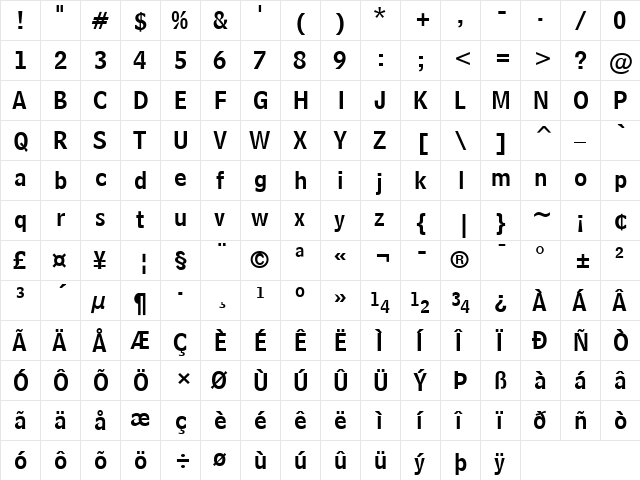
BellCentennial LT NameAndNr Regular Font Preview
BellCentennial LT NameAndNr Regular
Design Context for BellCentennial LT NameAndNr Typeface
BellCentennial LT NameAndNr is a composed and adaptable typeface that performs quietly and consistently across a wide range of design contexts. Its slender proportions lend an understated elegance to any composition.